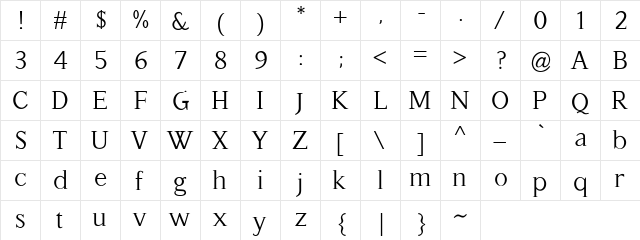
Hassliebe Regular
Design Context for Hassliebe Typeface
Hassliebe is a composed and adaptable typeface that performs quietly and consistently across a wide range of design contexts.